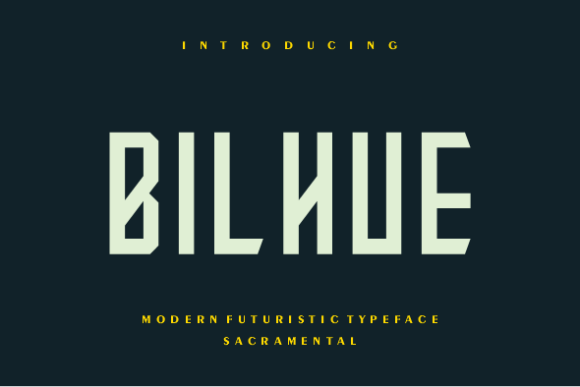
I still remember the frustration of working on a sci-fi themed poster project, struggling to find a font that captured the essence of modern tech aesthetics. My client wanted something sleek, bold, and futuristic, but everything I tried seemed to fall flat. That was until I stumbled upon Bilhue Font – a sharp, geometric typeface that’s been a game-changer for my design work.
First Impressions: A Modern Tech Aesthetic
Bilhue’s angular cuts and bold, minimalist structure immediately caught my attention. This font is built for the future, and it shows. The clean lines, precision-crafted to perfection, make it perfect for sci-fi posters, logos, tech branding, and digital interfaces. With Bilhue, you can bring a sleek and commanding presence to any layout.
• ✨ Versatility: Bilhue works beautifully in a variety of contexts, from digital screens to print materials.
• ✅ Legibility: Even at small sizes, Bilhue remains clear and easy to read.
• 💻 Digital friendliness: This font is optimized for digital use, making it perfect for websites, apps, and social media graphics.
While Bilhue is an excellent font, it’s not without its quirks. For example:
• 🤔 Limited script options: Bilhue is primarily a sans-serif font, so if you’re looking for a script font, this might not be the best choice.
• ⚠️ Overuse of bold weights: While Bilhue’s bold weights are stunning, overusing them can make your design look heavy-handed.
The Story Behind Bilhue
Bilhue was designed with the modern tech landscape in mind. Its creator, a forward-thinking typographer, aimed to craft a font that would embody the sleekness and sophistication of cutting-edge technology. The result is a font that’s both futuristic and approachable.
Font Name Bilhue Font
Author Sacramental
Q: What makes Bilhue suitable for sci-fi projects?
A: Bilhue’s geometric structure, bold weights, and futuristic feel make it an excellent choice for sci-fi themed designs.
Q: Can I use Bilhue for body text?
A: While Bilhue is legible, it’s primarily designed for headings and titles. For body text, consider pairing it with a more traditional serif font.
Q: Is Bilhue optimized for digital use?
A: Yes, Bilhue is optimized for digital screens, making it perfect for websites, apps, and social media graphics.